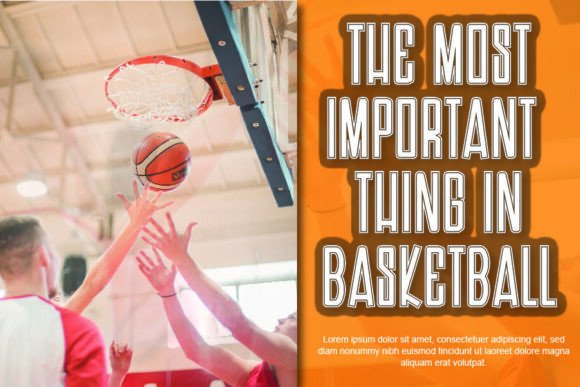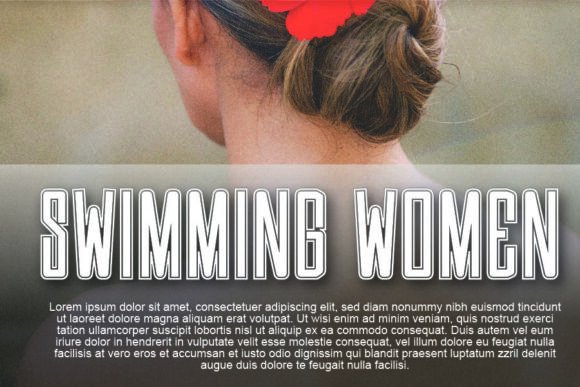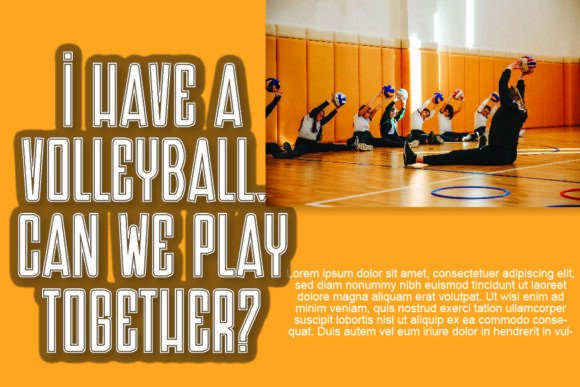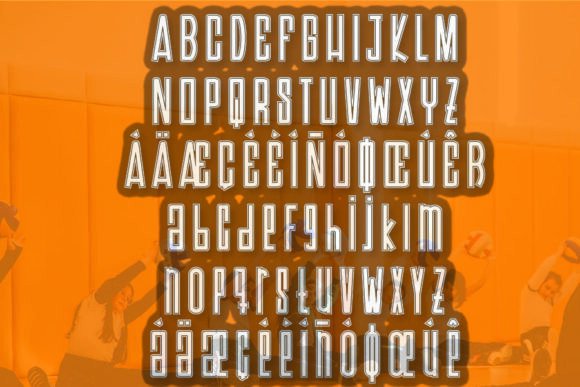
Athlete Font: Unleash the Urban Charm in Your Designs
In the world of design, typography plays a crucial role in conveying the tone and personality of a brand or creative project. For designers and crafters looking to add a modern edge to their work, the Athlete font is an excellent choice. This clean and true font embodies the zest and audacity synonymous with art, making it perfect for a wide range of applications.
The Athlete Font: A Fresh Linear Aesthetic
The Athlete font boasts a sleek, straight-line design that radiates an urban charm. Its fresh linear aesthetic lends a modern touch to any creative venture, from bold advertisements to standout brand personas, iconic album art, chic apparel, and more. With its clean form and crisp lines, Athlete is the ideal font for designers seeking to make a statement.
Key Features of the Athlete Font
- Clean and True Design: The Athlete font features a clean and true design that ensures clarity and legibility, even at smaller font sizes.
- Urban Charm: The font’s sleek, straight lines give it an urban feel that’s perfect for modern designs.
- Versatile: Athlete is suitable for a wide range of applications, including bold advertisements, brand personas, album art, apparel, and more.
- Modern Edge: The font’s linear aesthetic adds a modern touch to any design, making it perfect for designers looking to stay ahead of the curve.
Perfect for Bold and Creative Designs
The Athlete font is designed to make a statement. Its bold and clean lines make it perfect for creative projects that require a font with attitude. Whether you’re designing a bold advertisement, a standout brand persona, or an iconic album cover, Athlete is the ideal choice. Its urban charm and modern edge ensure that your design will stand out from the crowd.
Use Cases for the Athlete Font
- Bold Advertisements: Use Athlete to create eye-catching advertisements that grab attention and make a statement.
- Standout Brand Personas: Establish a strong brand identity with Athlete’s modern and urban aesthetic.
- Iconic Album Art: Give your album art a modern edge with Athlete’s sleek and straight lines.
- Chic Apparel: Use Athlete to create stylish and modern apparel designs that appeal to urban fashion enthusiasts.
- Ingenious Design: Apply Athlete to any creative project that requires a font with a modern and urban feel.
Why Choose the Athlete Font?
- Unique Aesthetic: Athlete’s linear aesthetic sets it apart from other fonts, ensuring your design will stand out.
- Versatility: The font’s versatility makes it suitable for a wide range of applications.
- Modern and Urban: Athlete’s urban charm and modern edge make it perfect for designers looking to create modern and stylish designs.
In conclusion, the Athlete font is an excellent choice for designers and crafters looking to add a modern edge to their creative projects. Its clean and true design, urban charm, and versatility make it perfect for a wide range of applications. Whether you’re designing a bold advertisement, a standout brand persona, or an iconic album cover, Athlete is the ideal font to make a statement.